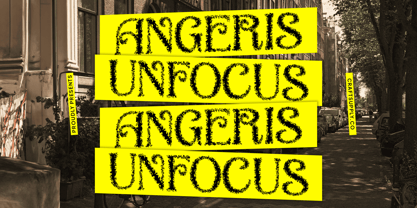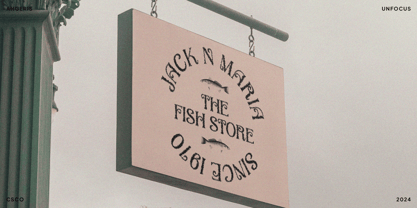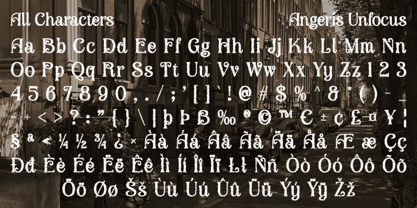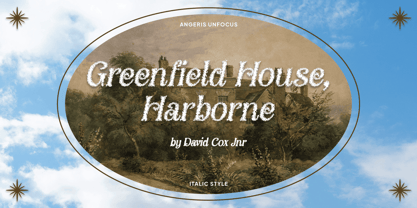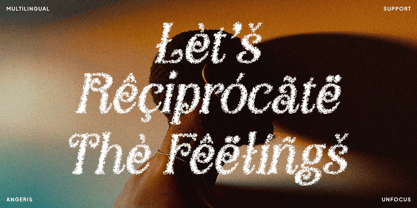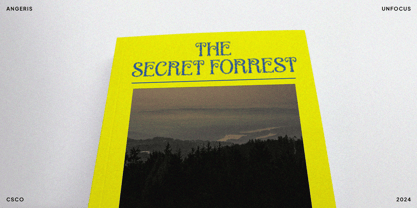
Angeris Unfocus
by Craft Supply Co
The Angeris Unfocus Font Family was designed by Trio Nazzar Saputra, Wahyu Hadi Yuana and published by Craft Supply Co. Angeris Unfocus contains 2 styles and family package options. More about this family
Angeris Unfocus: Classic Beauty with an Artistic Blur
Serif Font with Art Nouveau and Retro Influences
Angeris Unfocus blends Art Nouveau’s characteristic curved lines with retro elements, creating a font that exudes elegance and nostalgia. The addition of an unfocus effect adds a unique artistic dimension, imparting a subtle and romantic ambiance to its classic beauty.
Captivating Elegance
This serif font captures attention with its blend of classic beauty and artistic blur. The graceful curves inspired by Art Nouveau and the retro influences combine seamlessly to create a captivating and elegant look.
Ideal for Sophisticated Designs
Suitable for various applications such as wedding invitations, luxury branding, art posters, and promotional materials, Angeris Unfocus enhances designs with a classy and innovative aesthetic. Its blend of classic beauty, nostalgic charm, and artistic blur makes it a versatile choice for projects requiring a touch of sophistication and creativity.
Designers: Trio Nazzar Saputra, Wahyu Hadi Yuana
Foundry: Craft Supply Co